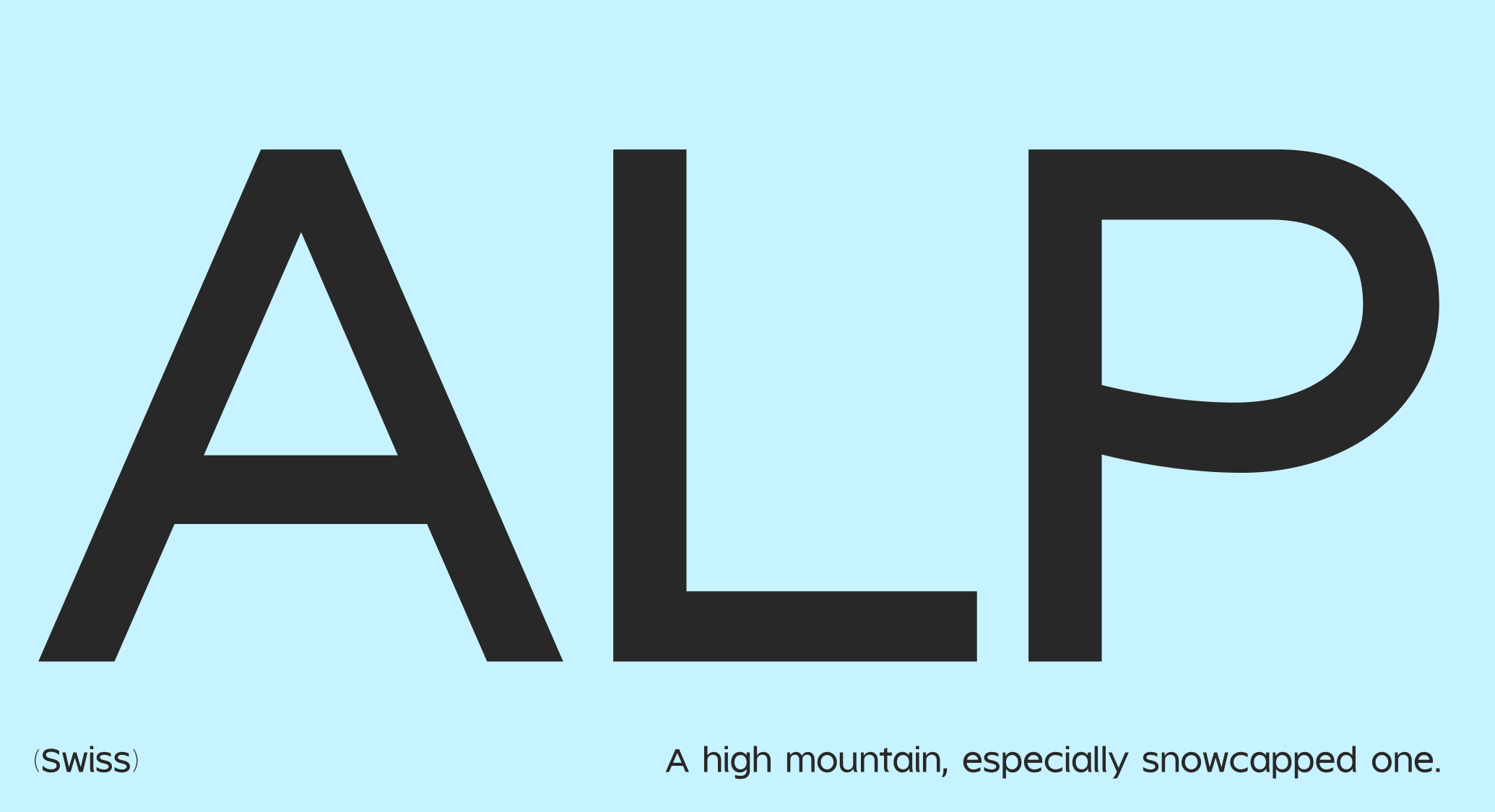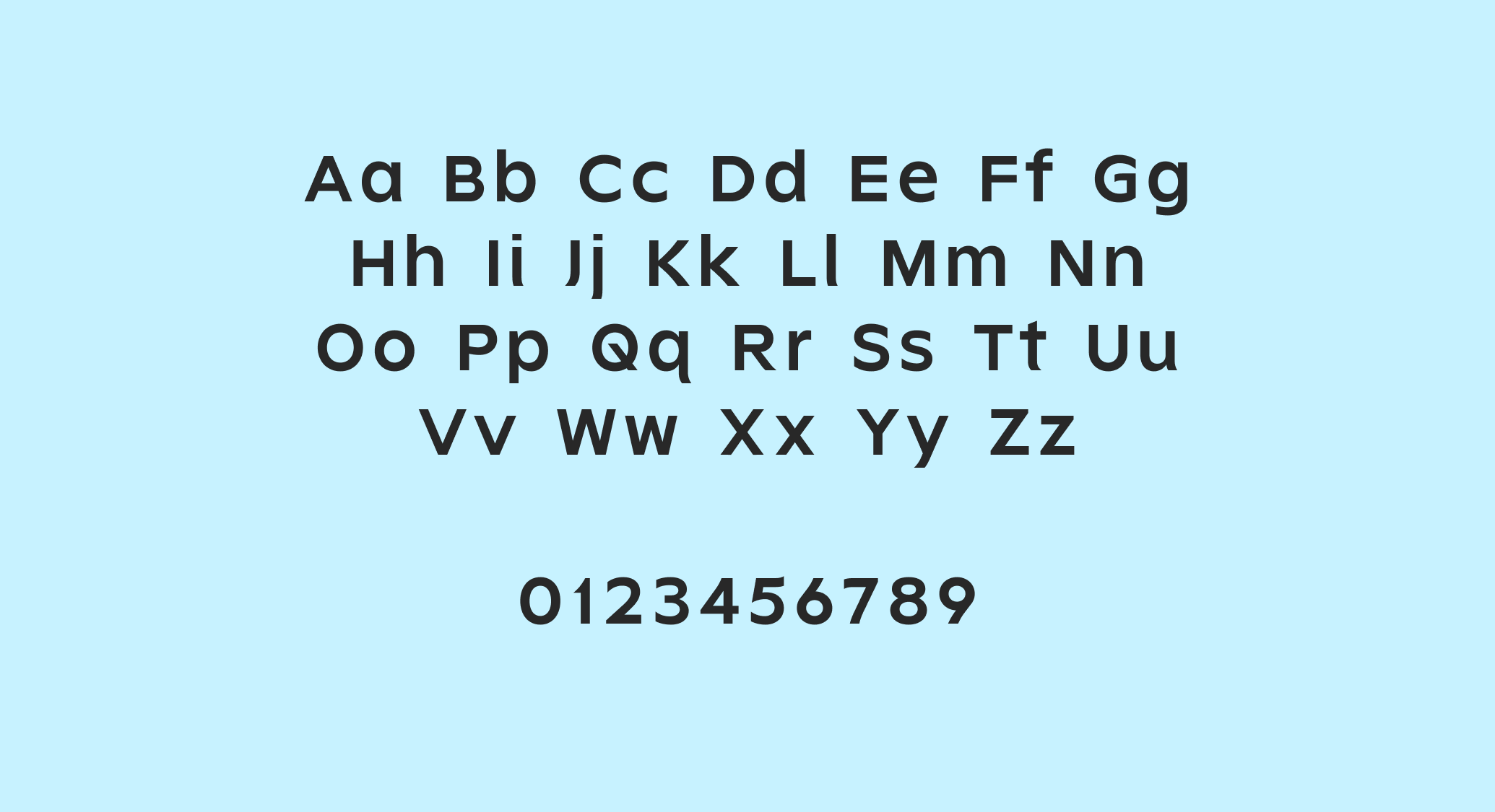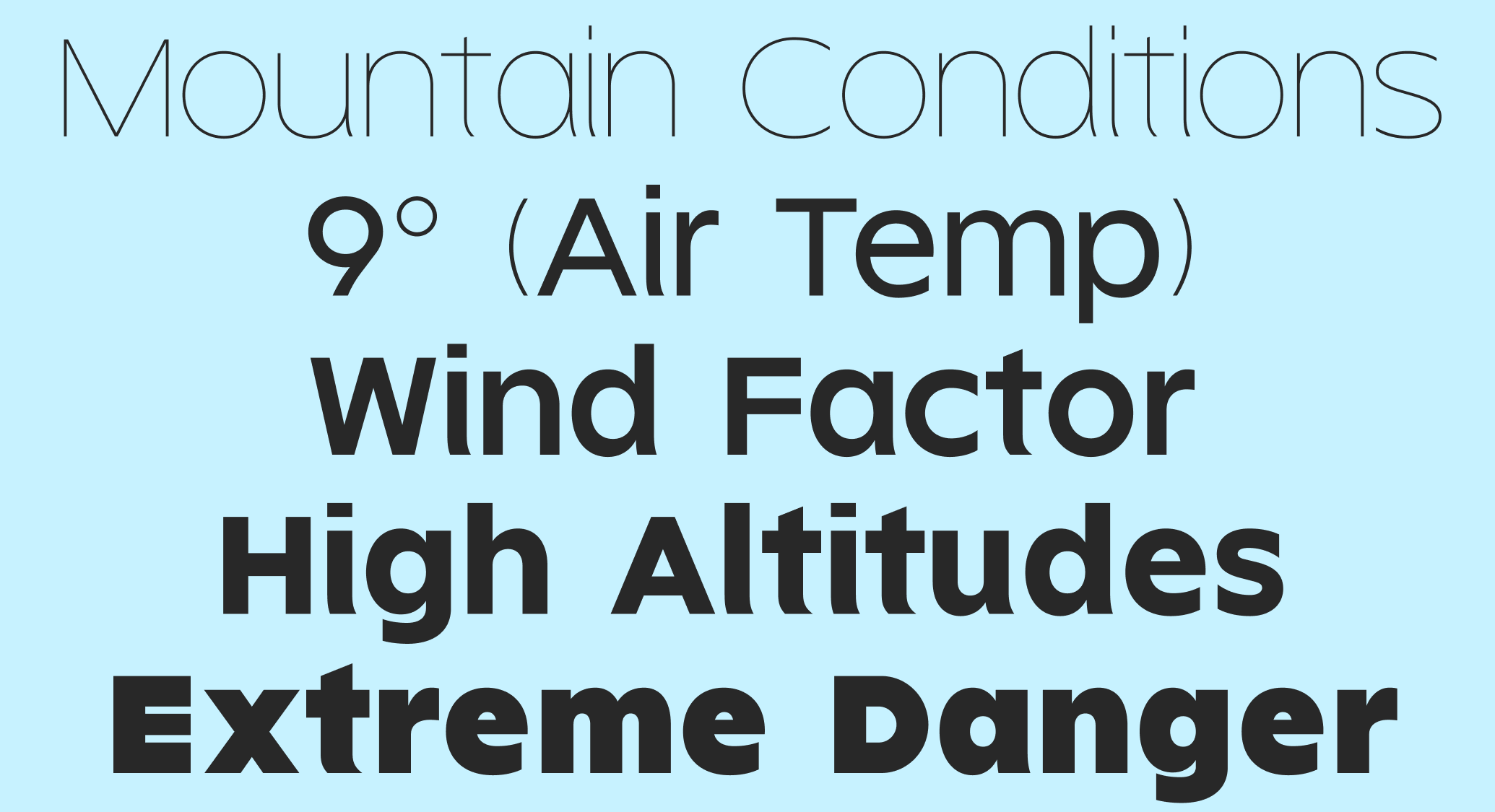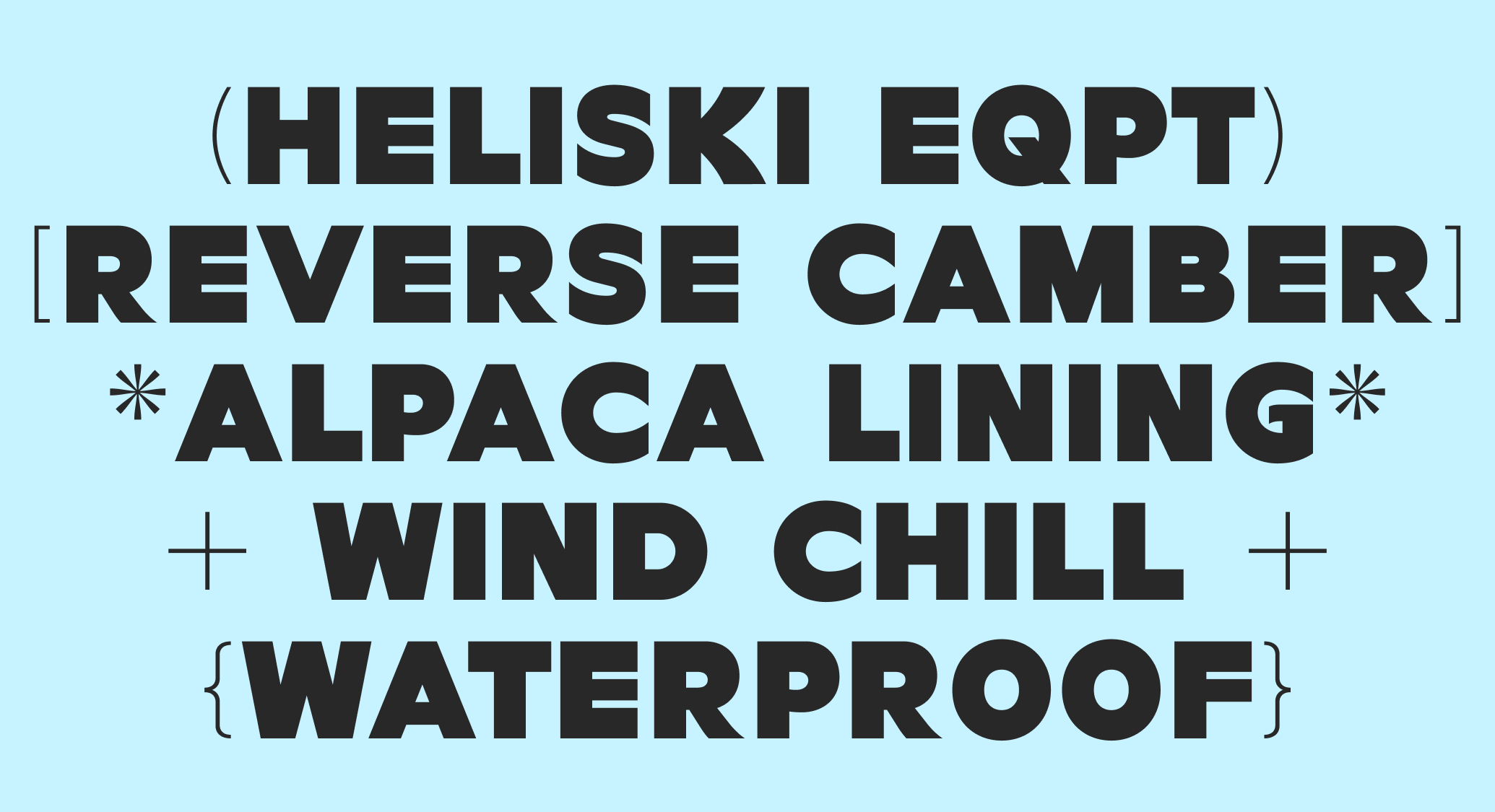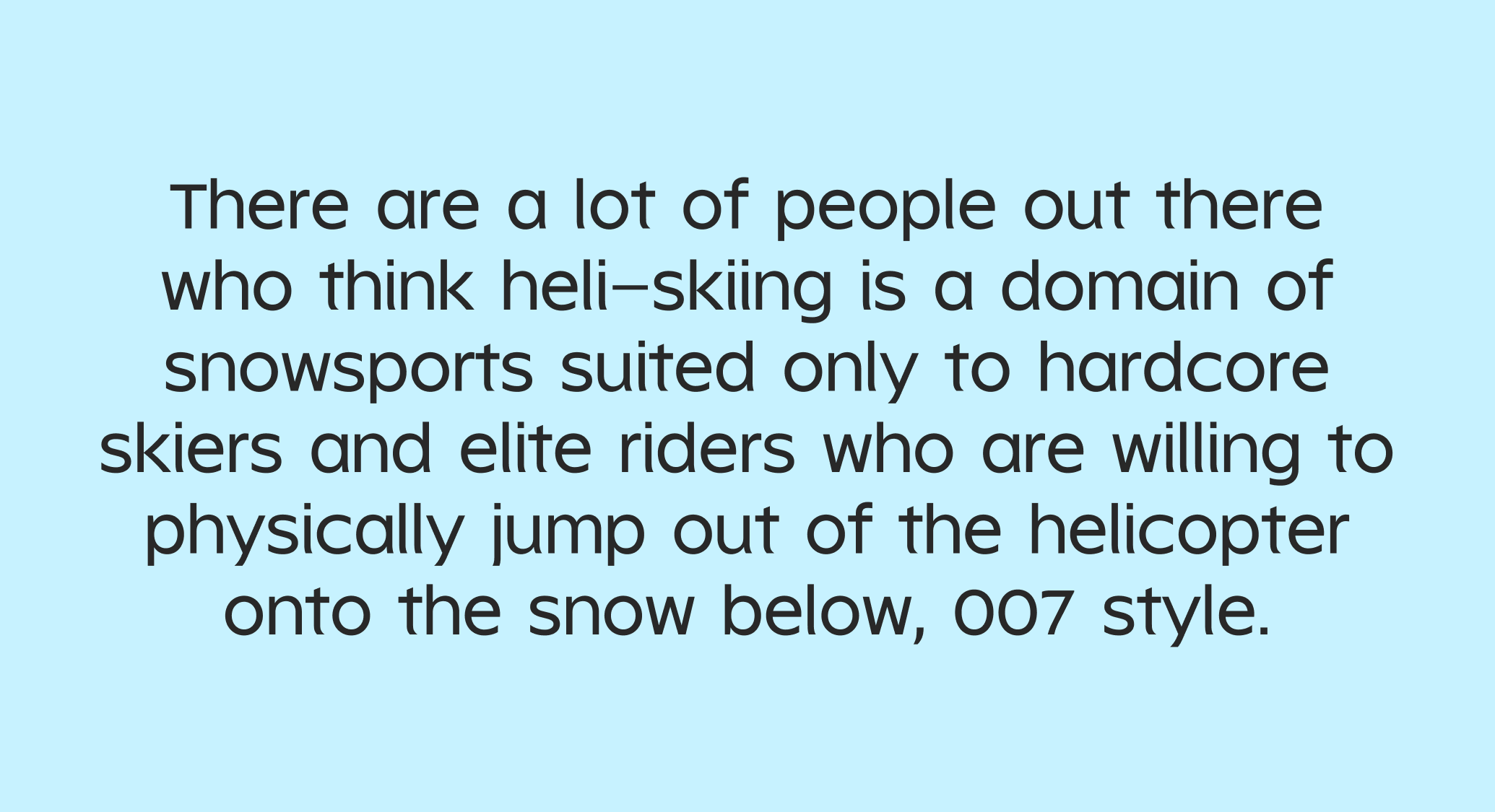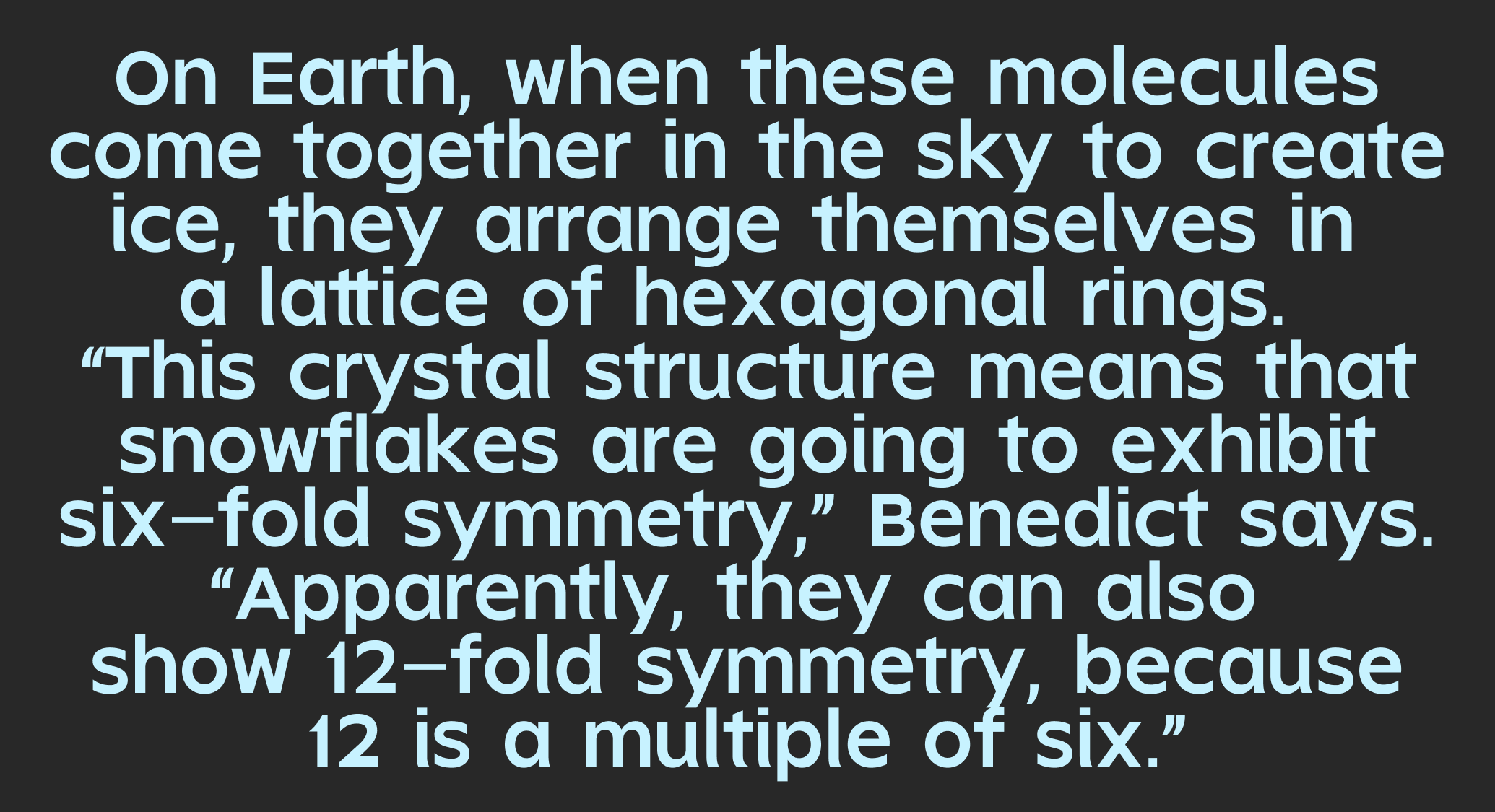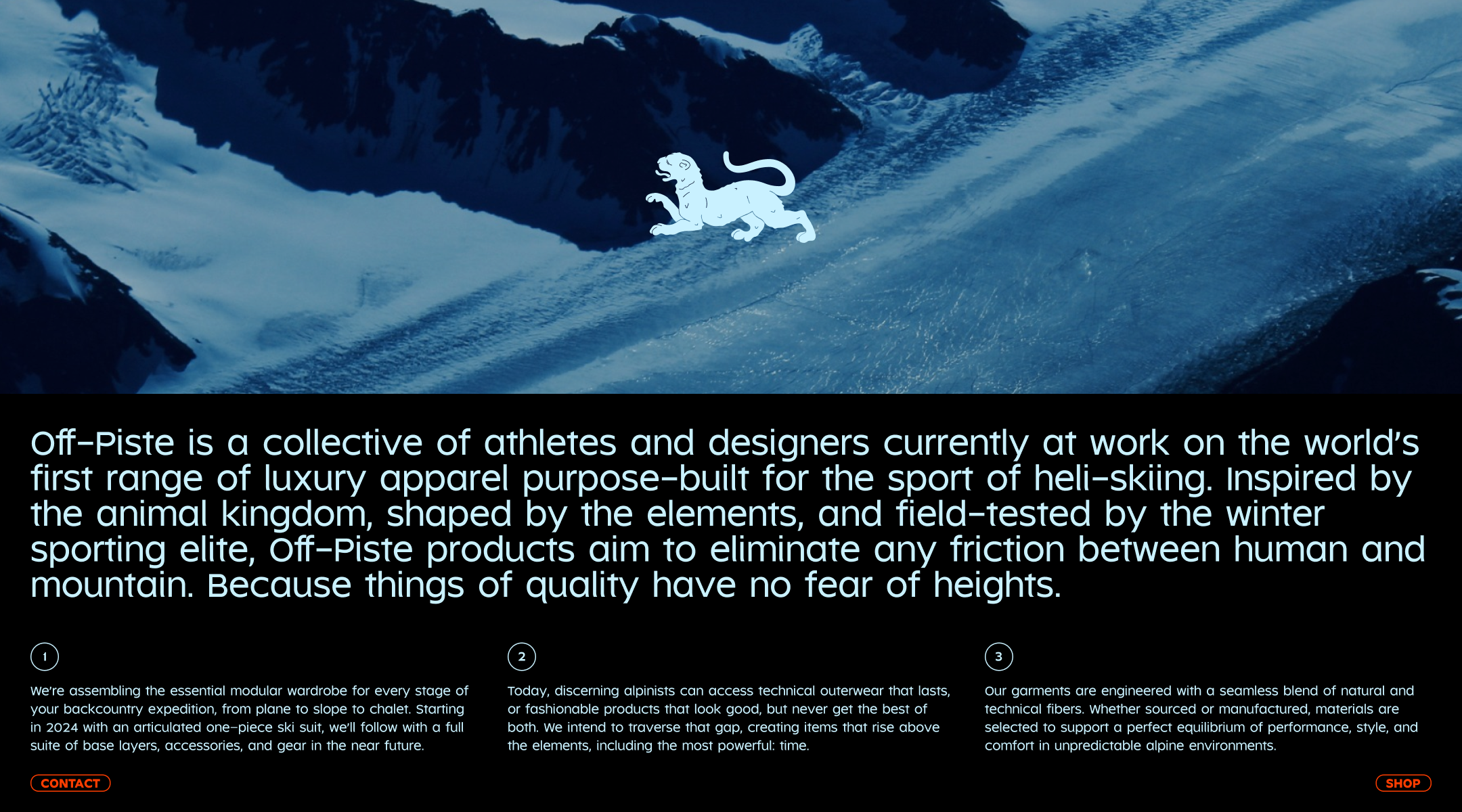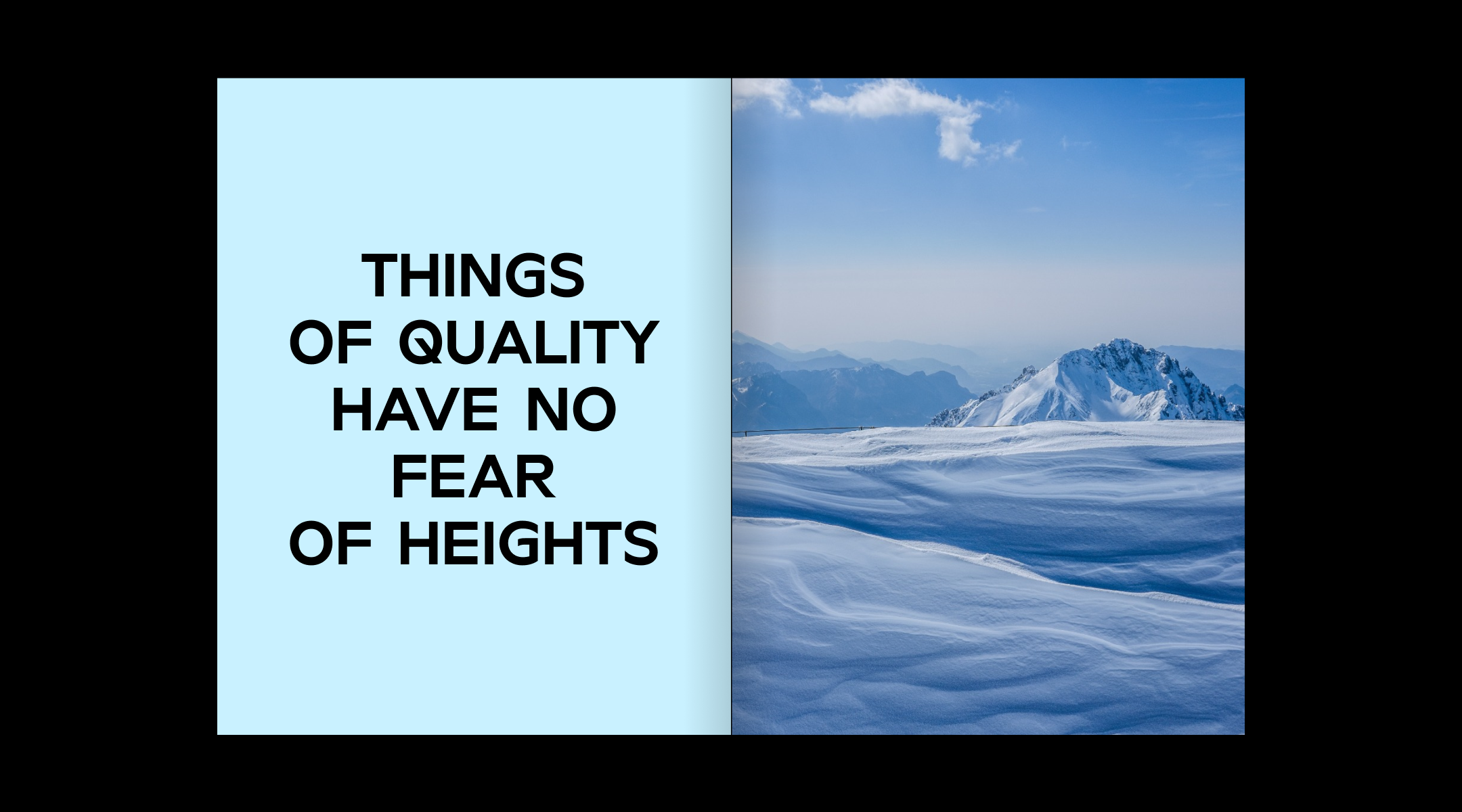
OFF PISTE
Off-Piste is a luxury helicopter-skiing company. Abbr. Foundry drew its custom type suite, composed of weights ranging from Light to Ultra, all inspired by cambered skis and archival European winter tourism posters.